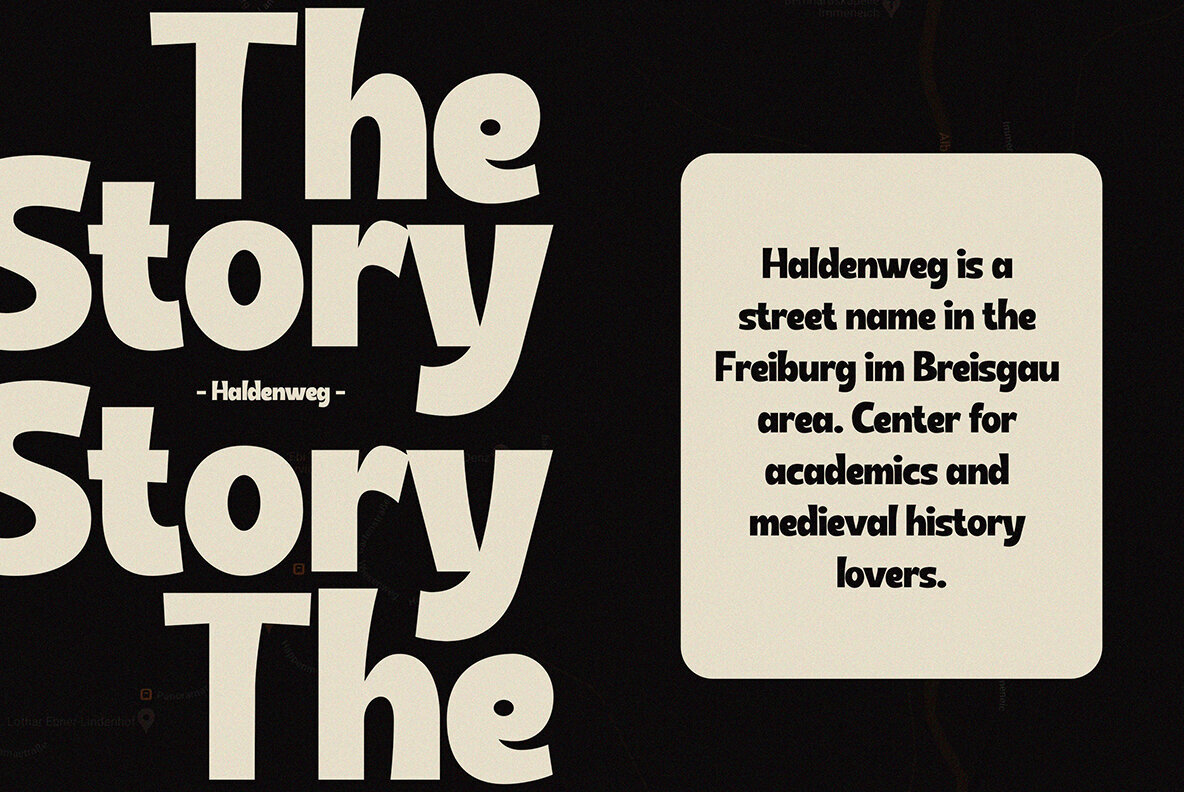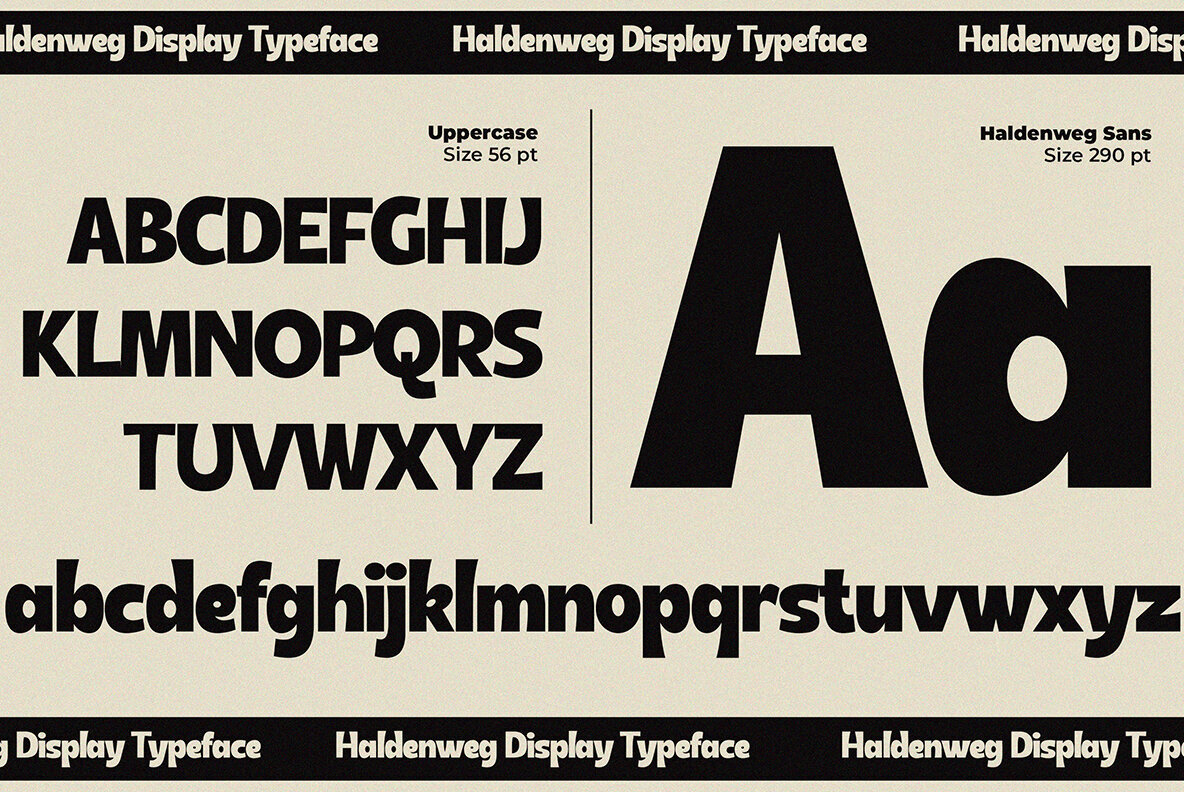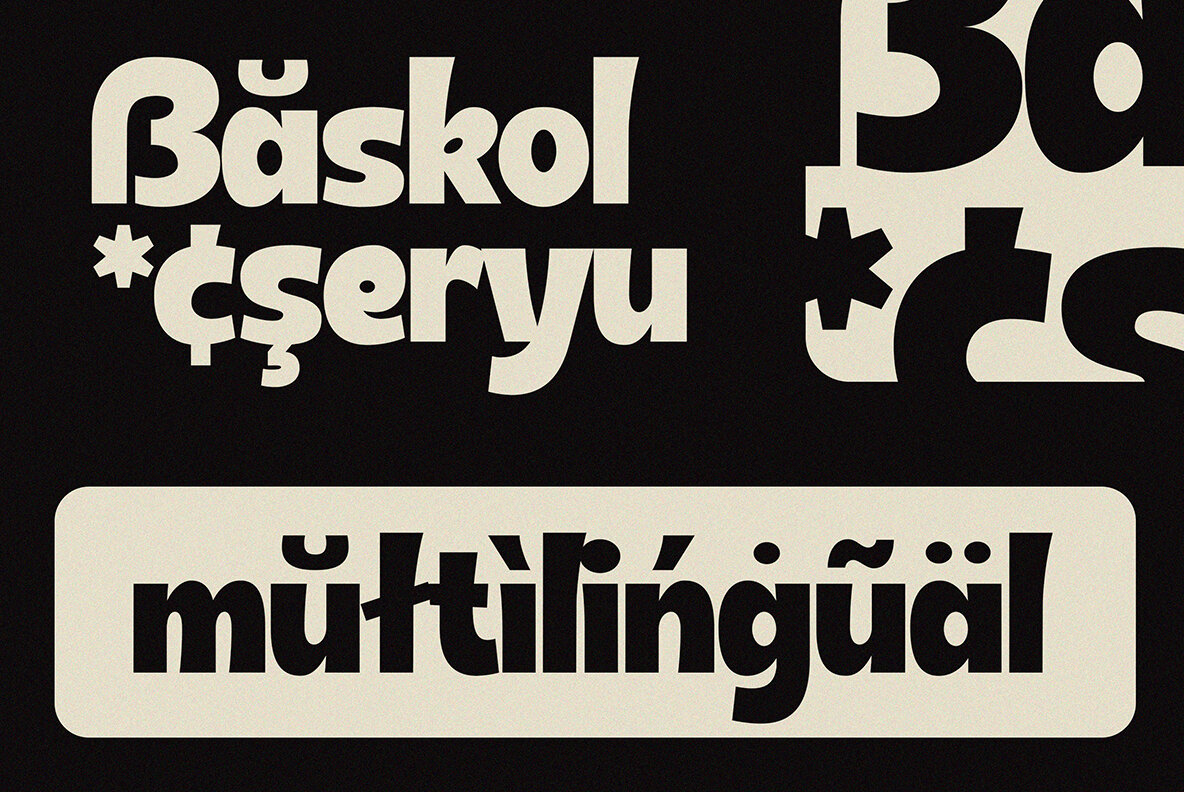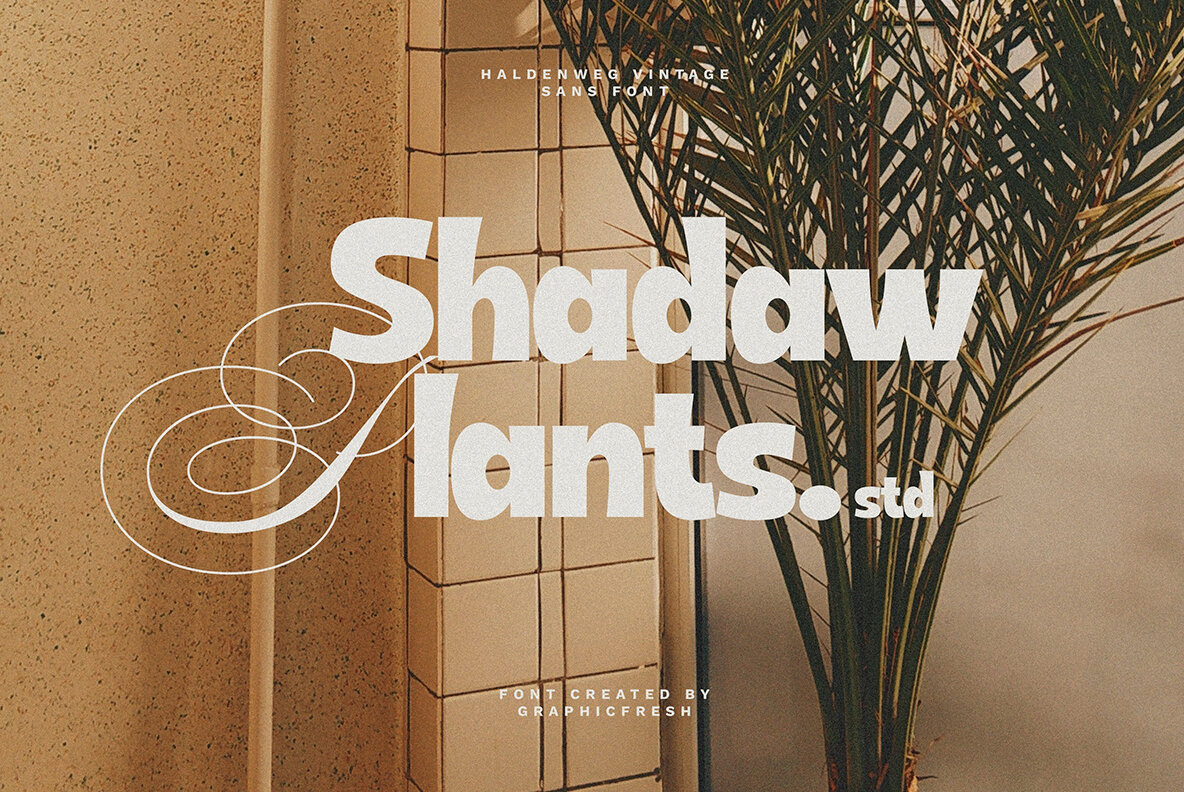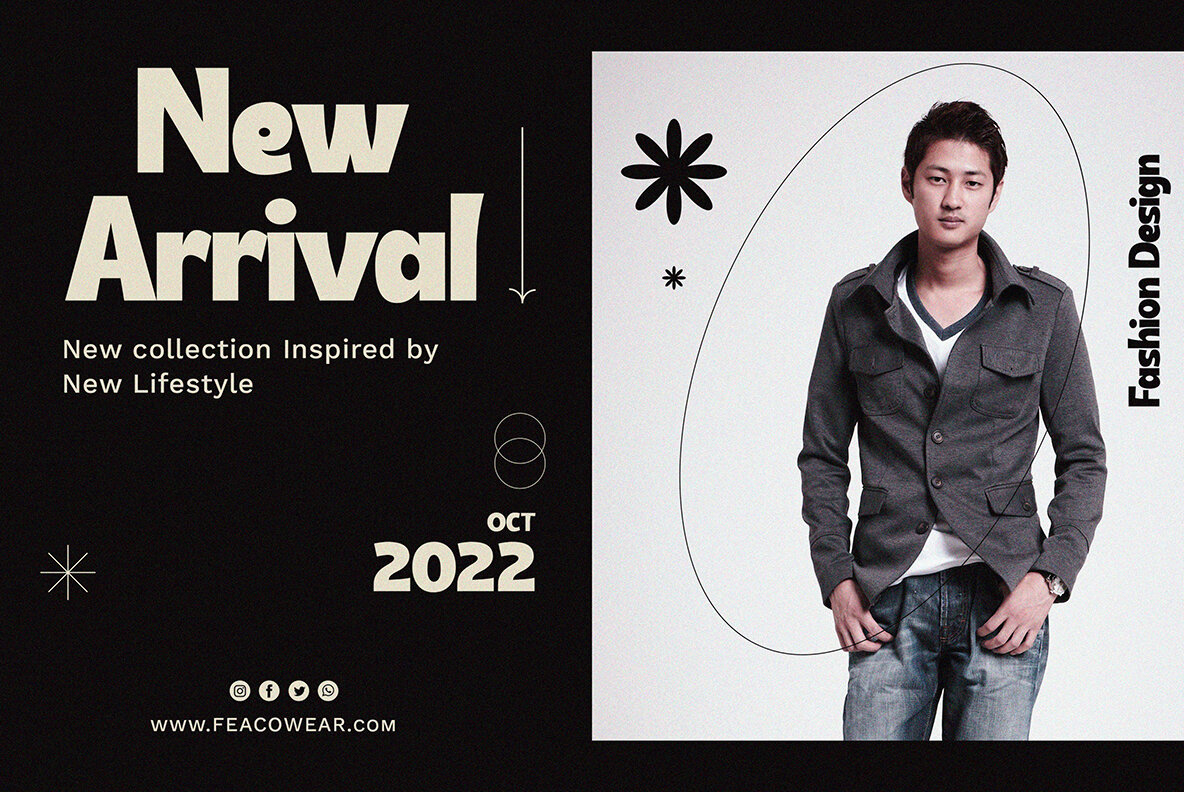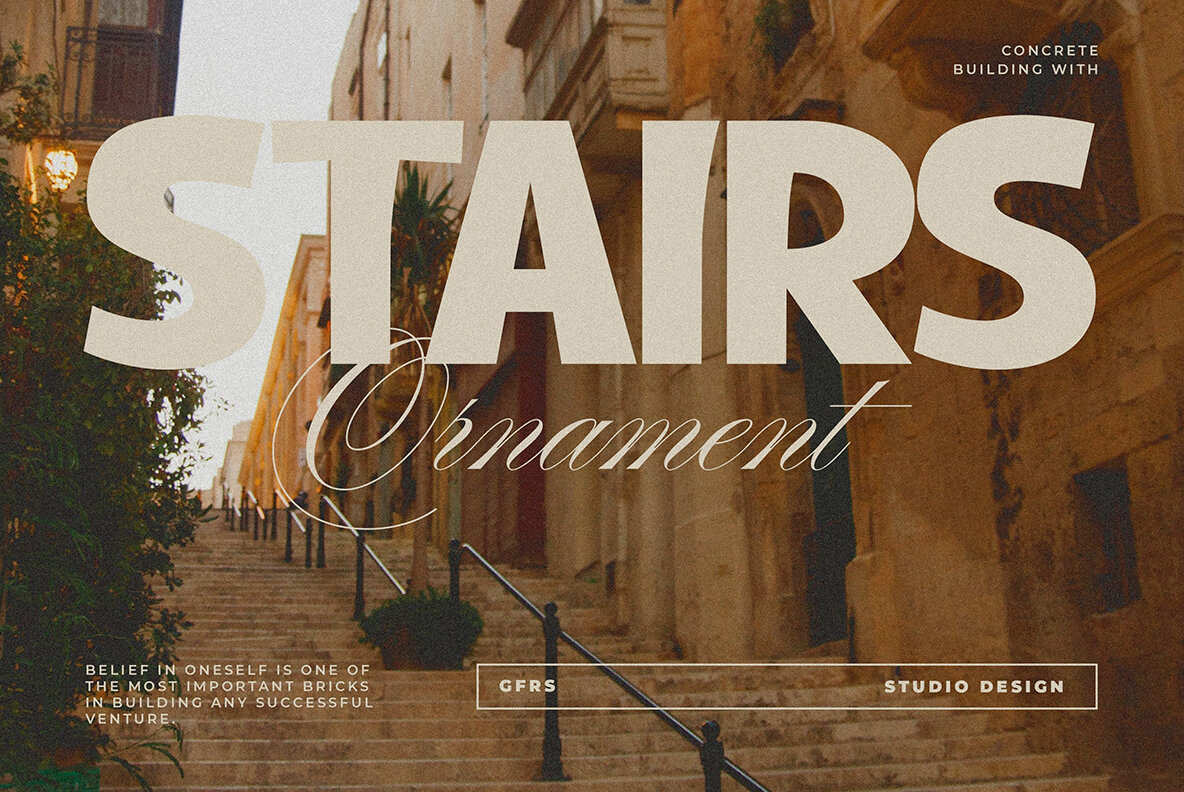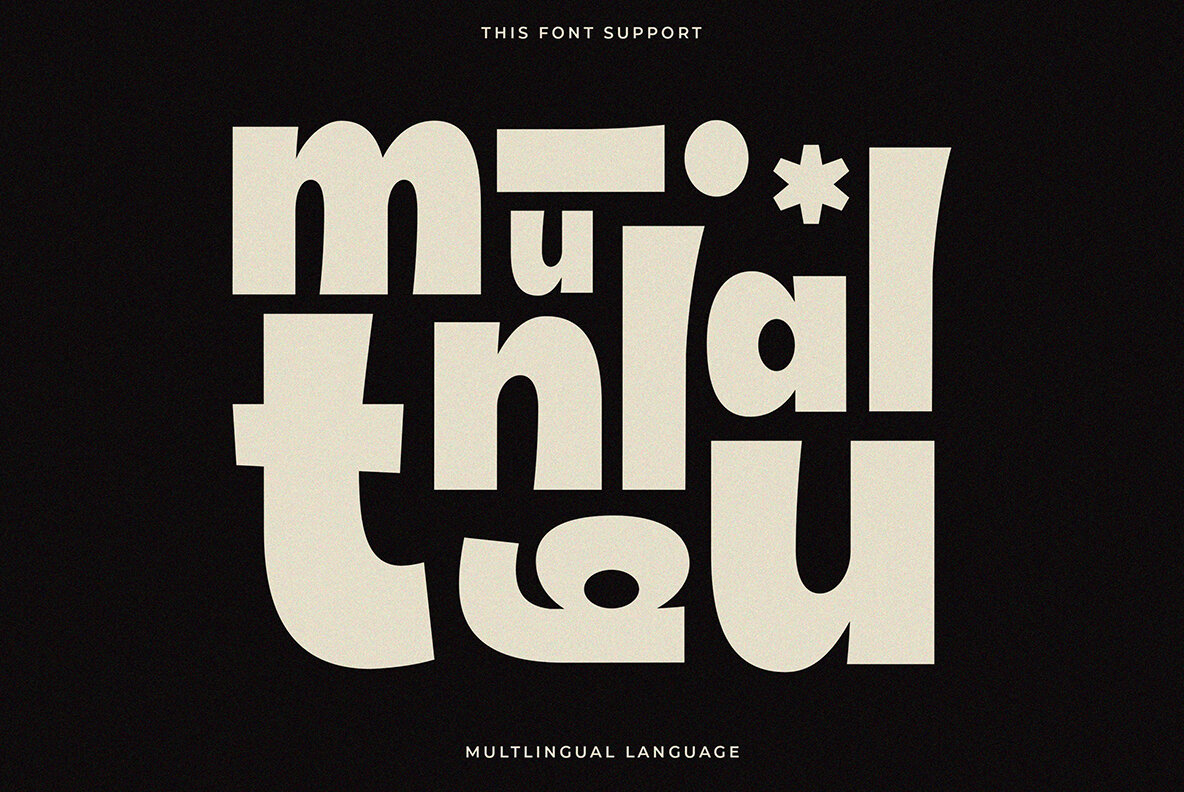
Haldenweg Font
Haldenweg Regular
Haldenweg is a distinctive typeface that captures the essence of 1980s and 1990s design, presenting a nostalgic nod to the past while maintaining a contemporary flair. Its classic aesthetic is underscored by subtle modern elegance, making it a fitting choice for designers seeking to evoke a sense of retro charm blended with current sophistication.Haldenweg: Retro Style with a Modern Twist